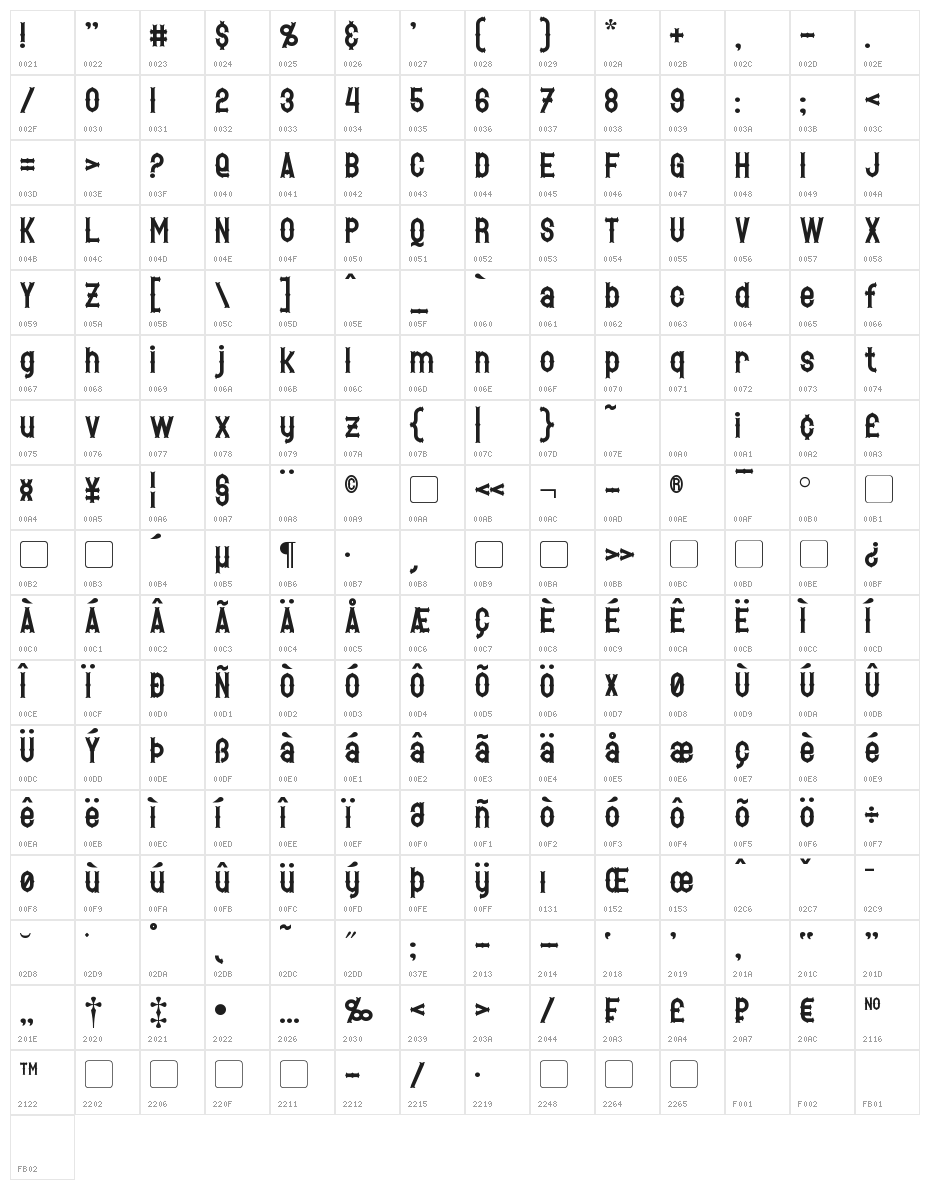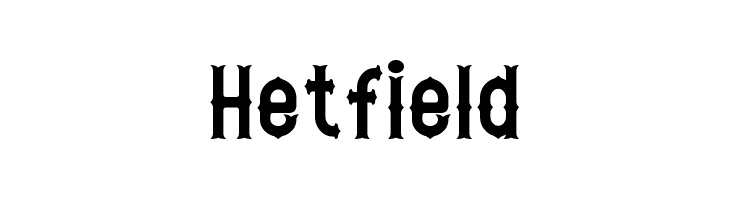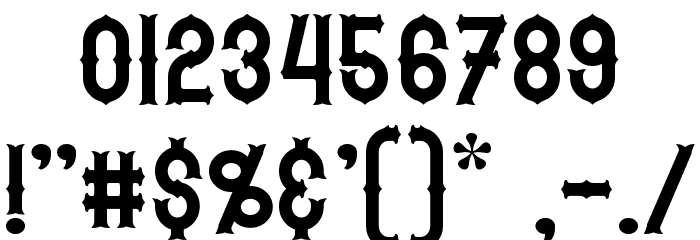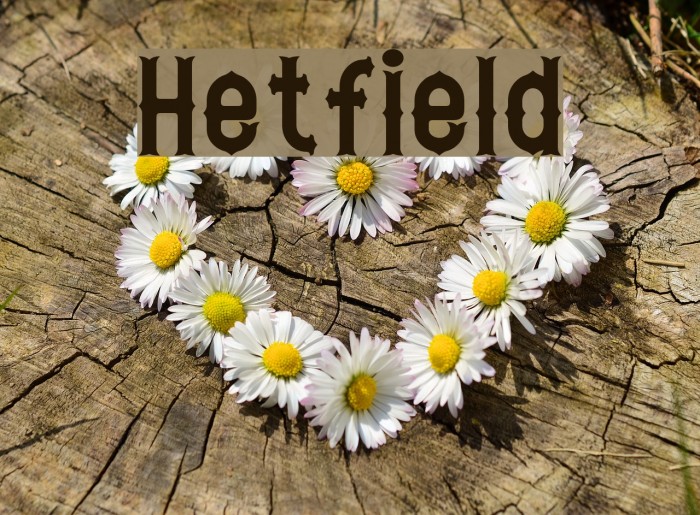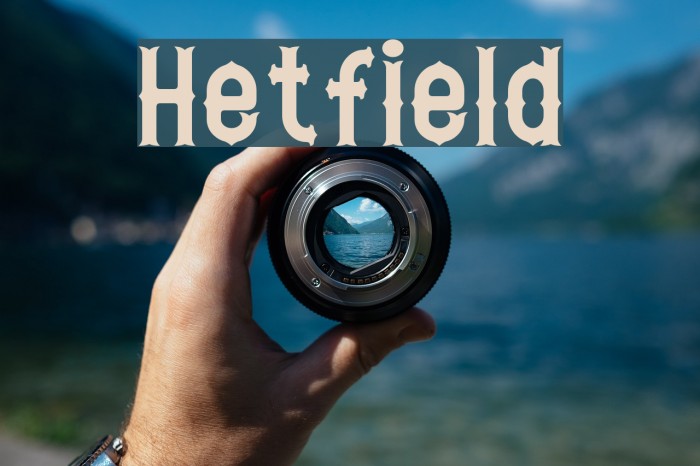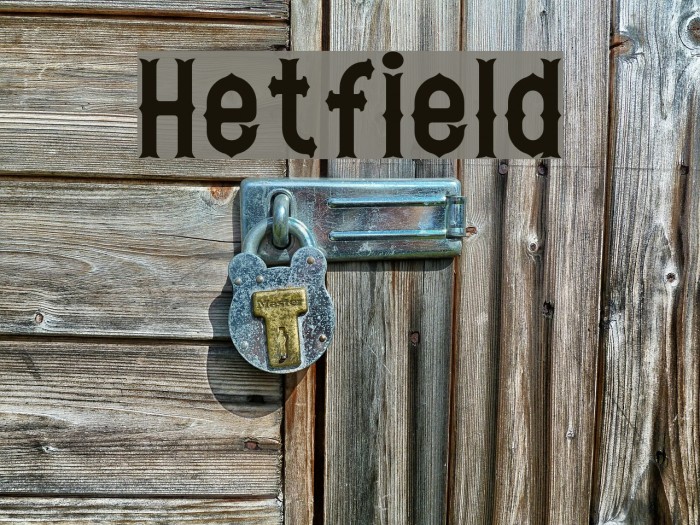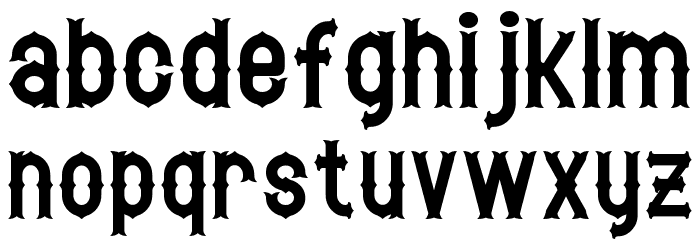
Hetfield Font
Hetfield Description
This font features a bold and striking design with sharp, angular edges and a gothic-inspired aesthetic. The uppercase letters are particularly prominent, with a strong presence that commands attention. The lowercase letters maintain the same boldness, offering a cohesive look throughout. Numbers and special characters are equally distinctive, making this font versatile for various uses. The overall style is reminiscent of heavy metal and rock themes, ideal for projects that require a dramatic and impactful visual statement.
| Overall Style | Gothic, Decorative |
| Use Case | Logos, Posters, Headlines |
| Proposed Projects | Ideal for band logos, album covers, posters, and any project requiring a dramatic and bold aesthetic. |